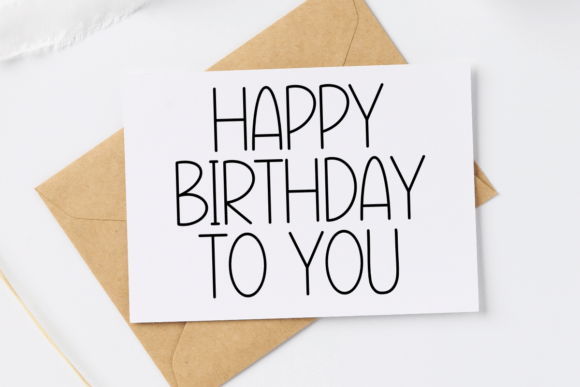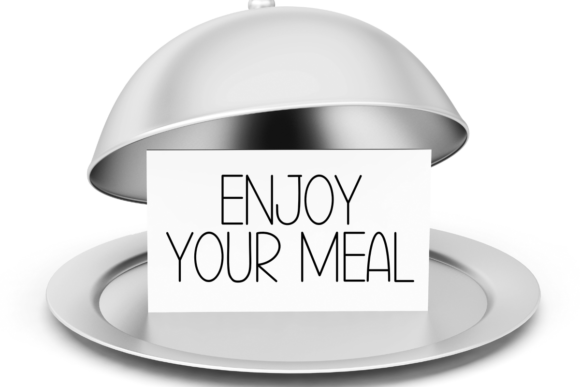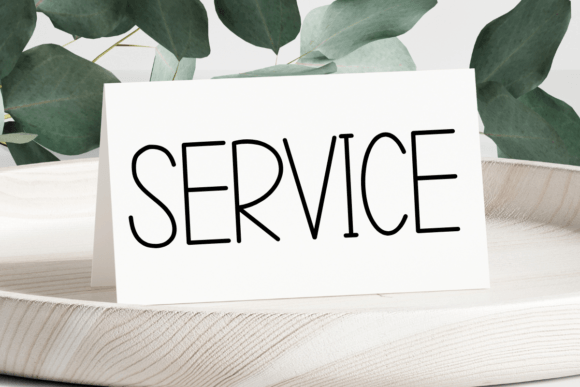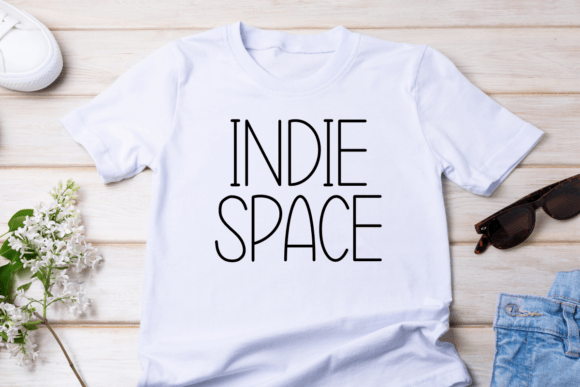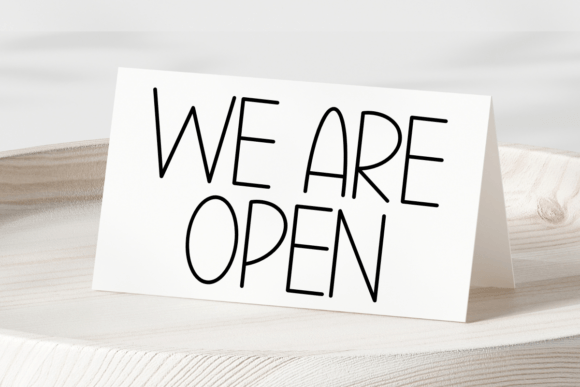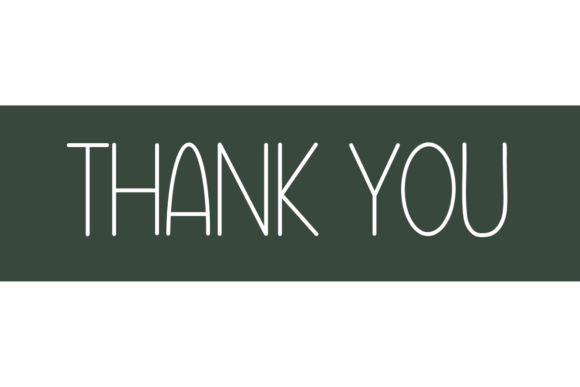
Introduction to Simple Water Melon Font
As a designer, there’s nothing quite like the thrill of finding the perfect font for your next project. It’s like stumbling upon a hidden treasure, the one that makes your creative vision come alive. I still remember the time I was working on a summer-themed campaign, and I needed a font that captured the carefree spirit of the season. That’s when I discovered the Simple Water Melon Font – a delightful, handwritten sans serif font that added a touch of whimsy to my design.
This charming font is more than just a pretty face; it’s a valuable design resource that can elevate any project. With its high-quality, friendly aesthetic, Simple Water Melon Font is perfect for a wide range of creative endeavors, from fun kids’ designs to elegant wedding invitations. Whether you’re looking for a free download or a versatile font to add to your library, Simple Water Melon Font is an excellent choice.
Key Features of Simple Water Melon Font
- High-quality design resource ideal for creative projects requiring a unique touch
- Includes a single font style with 256 glyphs, making it suitable for a variety of text-based applications
- Unique and playful design makes it perfect for branding, packaging, and advertising projects
Honest Review: Simple Water Melon Font
I recently had the chance to work with the Simple Water Melon Font, and I must say, it’s a great addition to any designer’s library. This high-quality font is perfect for creative projects that require a playful and whimsical touch.
- High-quality vector graphics that render well at any size
- Translucent background option for added flexibility in design
- May not be suitable for formal or professional projects, due to its playful nature
- Limited language support, which may be a concern for international projects
Overall, the Simple Water Melon Font is a great resource for designers looking to add a bit of fun and personality to their creative projects. With its high-quality design and transparent background option, it’s a great addition to any design library.
How to Use Simple Water Melon Font
The Simple Water Melon Font is a high-quality design resource perfect for creative projects that require a unique and playful touch. With its transparent background, this font is ideal for adding a pop of color to your designs.
To get the most out of the Simple Water Melon Font, consider the following tips:
- Experiment with different font sizes and colors to create a unique look.
- Combine the font with other design elements, such as images and shapes, to add depth and interest.
- Use the font to create a consistent brand identity across all your designs.
The Simple Water Melon Font is perfect for a variety of creative projects, including:
- Social media graphics and advertisements.
- Children’s books and educational materials.
- Event invitations and party decorations.
Alternatives to Simple Water Melon Font
Pacifico is a high-quality, elegant script font perfect for design projects that require a touch of sophistication. Its cursive design is ideal for use on a transparent background, making it a great choice for creative projects that involve water or beach themes. When to use: Wedding invitations, restaurant menus, and product packaging.
Compared to Simple Water Melon Font, Pacifico has a more refined and sophisticated look, making it suitable for high-end design projects.
Great Vibes is a modern, handwritten font that’s perfect for designers looking for a fun and playful feel. Its unique design makes it ideal for use in creative projects that require a sense of freedom and adventure. When to use: Social media graphics, posters, and advertising materials.